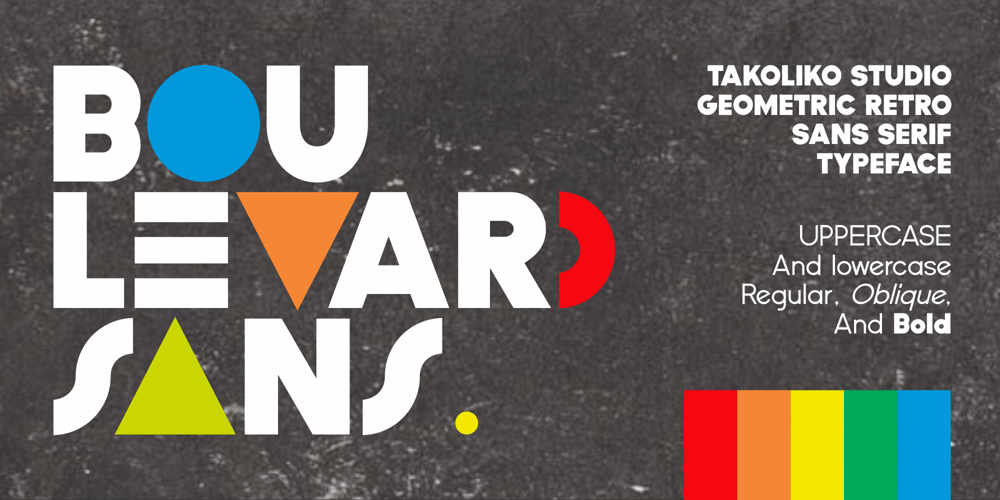
Boulevard Sans Font Family was designed by Deni Hidayat and published by takoliko. Boulevard Sans contains 4 styles and family package options. Boulevard Sans typeface designed by Takoliko Studio. This Sans Serif font inspired by retro geometric style especially the radio and vhs era.The simplicity and geometric style is a timeless choice for your design. It comes with reguler and Bold, also oblique style for a different feel. Its bold characteristics makes it suitable for attention grabbing design projects such as headlines, posters, social media displays and editorials. And You can combine the family to make a larger design concept.